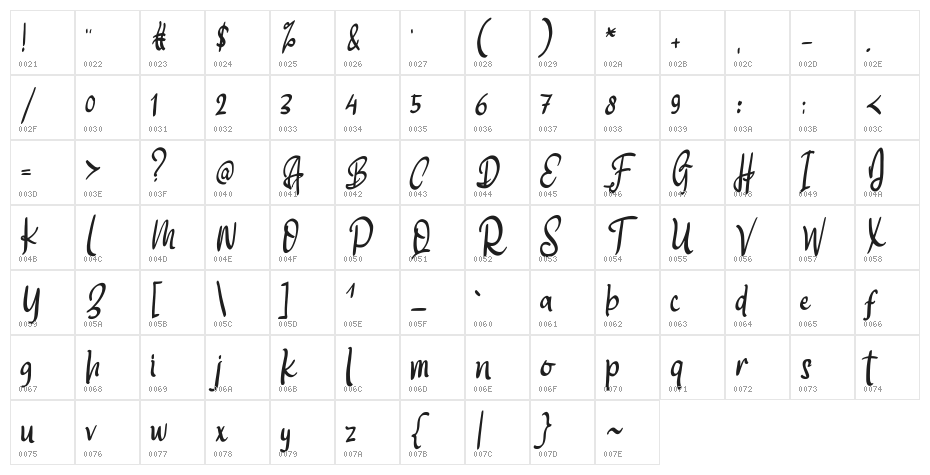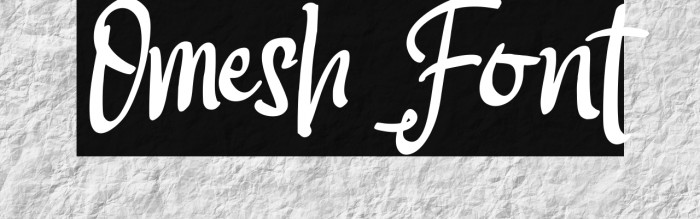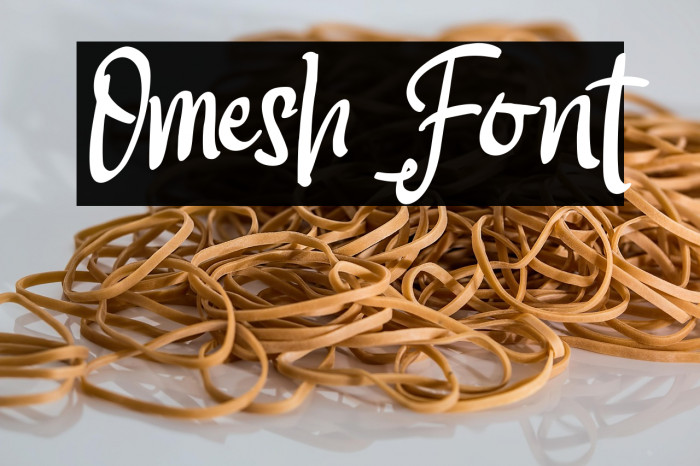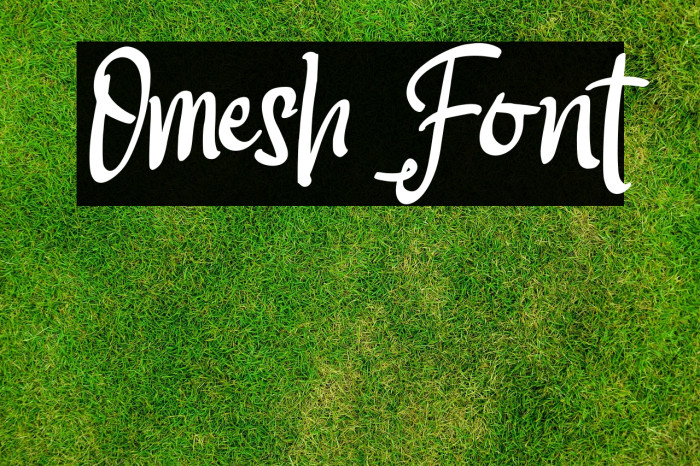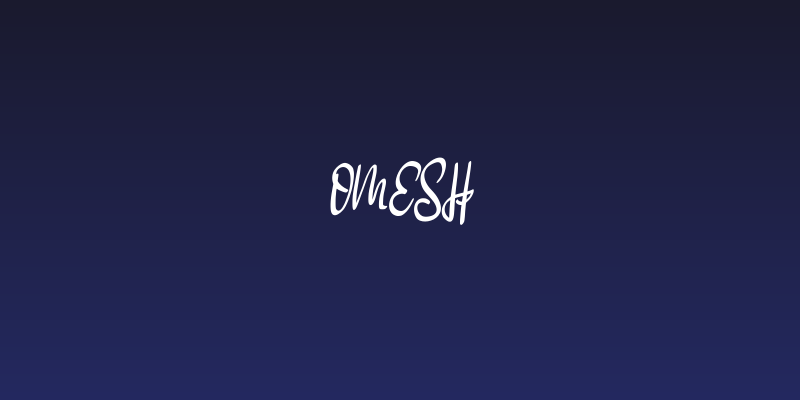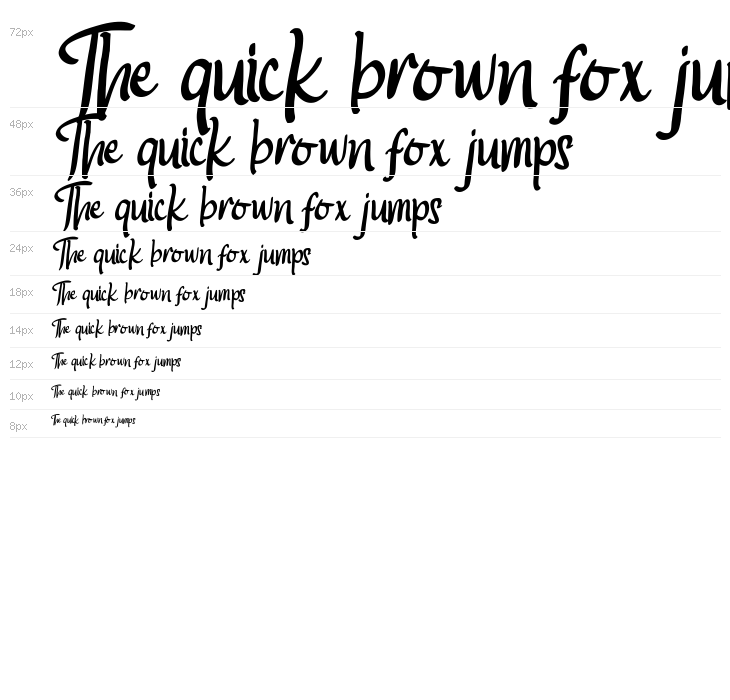
Omesh Font
Omesh Description
This font features a dynamic and flowing script style, characterized by its smooth, cursive strokes and elegant curves. The uppercase letters are bold and expressive, with a slight slant that adds a sense of movement and fluidity. The lowercase letters maintain a consistent rhythm, with rounded forms and a playful touch. Numbers and special characters are designed to complement the overall aesthetic, ensuring versatility across various applications. The font's handwritten quality gives it a personal and approachable feel, making it suitable for creative and informal projects.
| Proposed Projects | Ideal for wedding invitations, greeting cards, personal branding, and creative projects requiring a personal touch. |